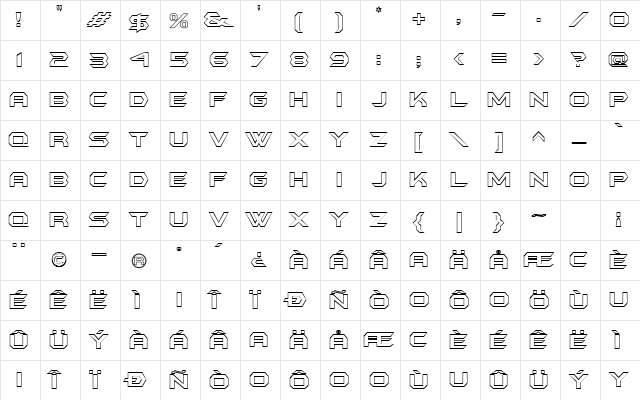
BatmanForeverOutline Regular Font Preview
BatmanForeverOutline Regular
Design Context for BatmanForeverOutline Typeface
BatmanForeverOutline brings ornamental detail and strong personality to headlines and identities, where visual impact matters more than quiet functionality.
Font Pairing: Pair with a clean neutral sans-serif for body copy to let BatmanForeverOutline's character lead without overwhelming the composition.
Pro Tip: Treat BatmanForeverOutline as the centrepiece of your typographic hierarchy. One strong heading set in a decorative face can carry an entire layout.